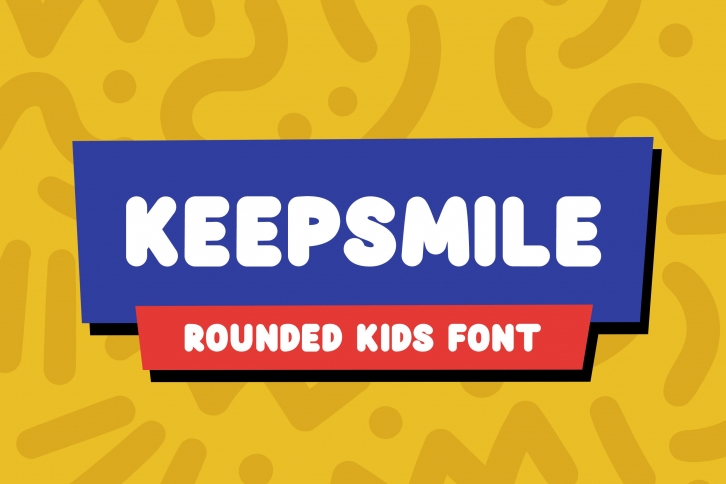
Keepsmile is a beautiful font that was designed by Almarkha Type. It's a great choice for designers and creatives who need such a font. It was released on December 11, 2020 and the file size is 21.3 MB. Keepsmile may give a more youthful, expressive and casual look to your project. It is a very beautiful, refined, elegant, and high-quality font.